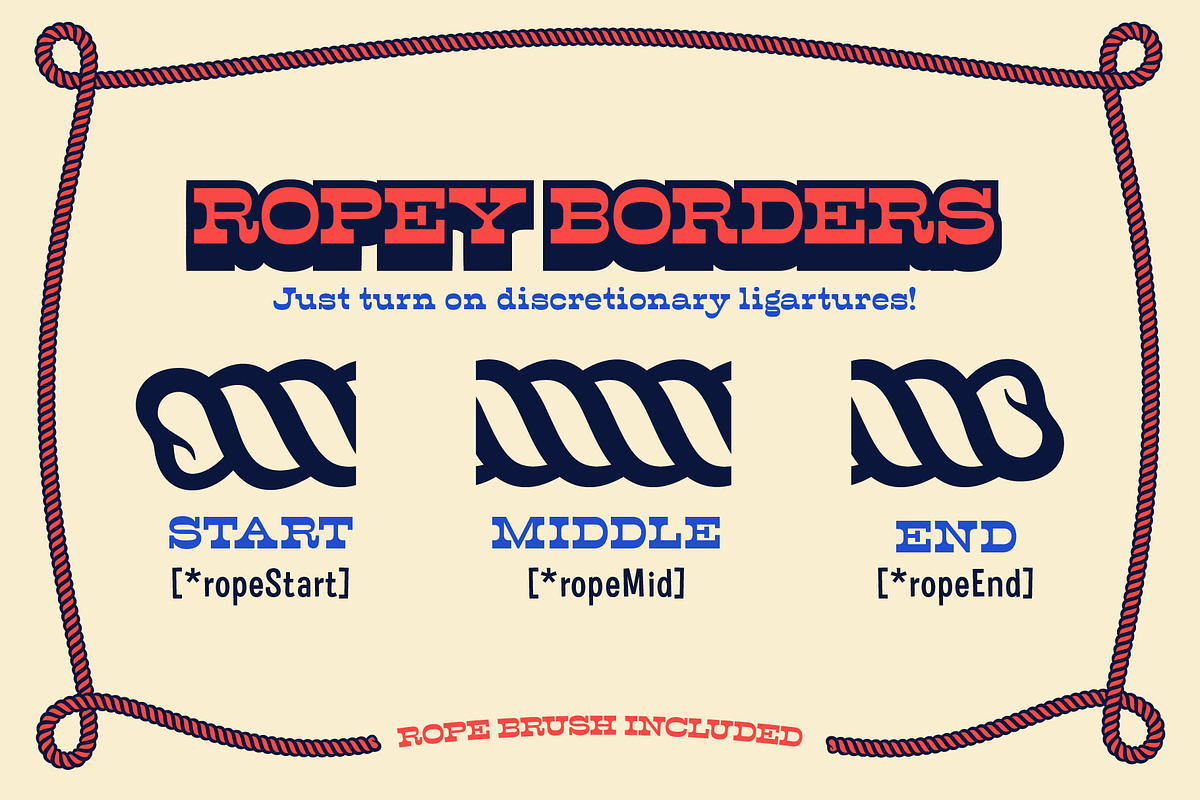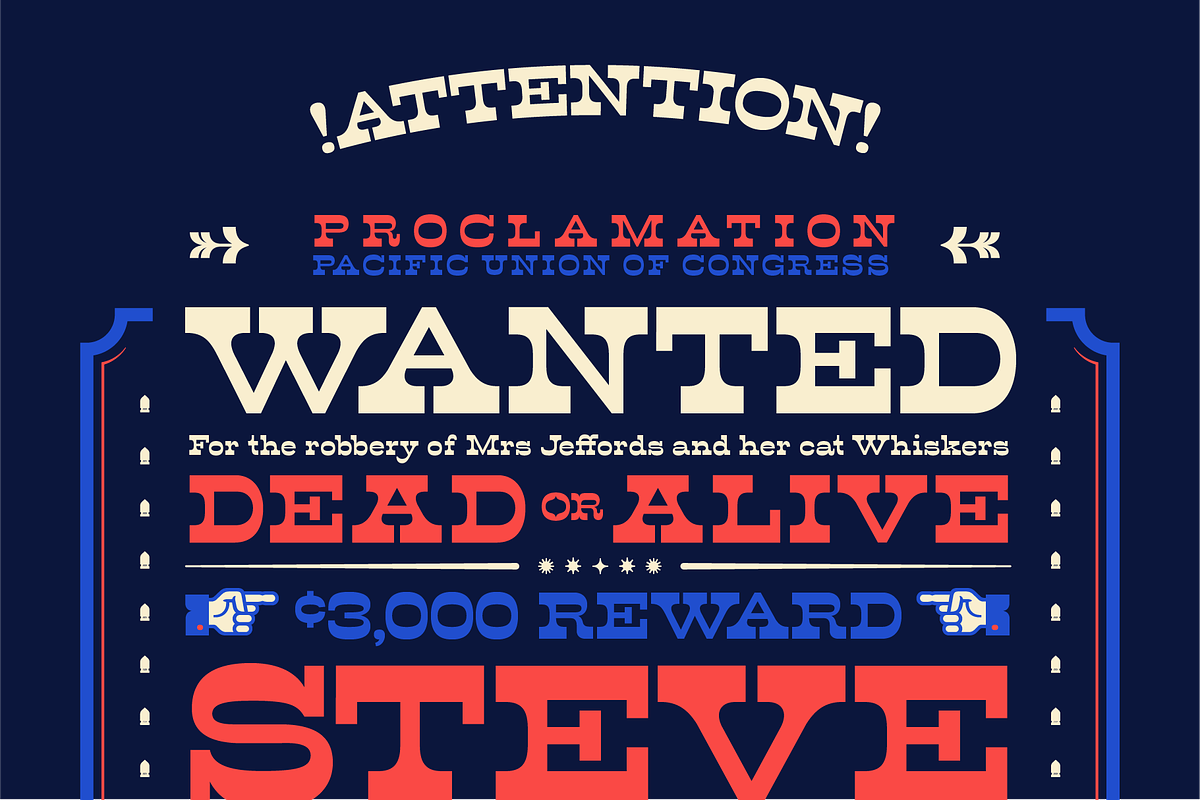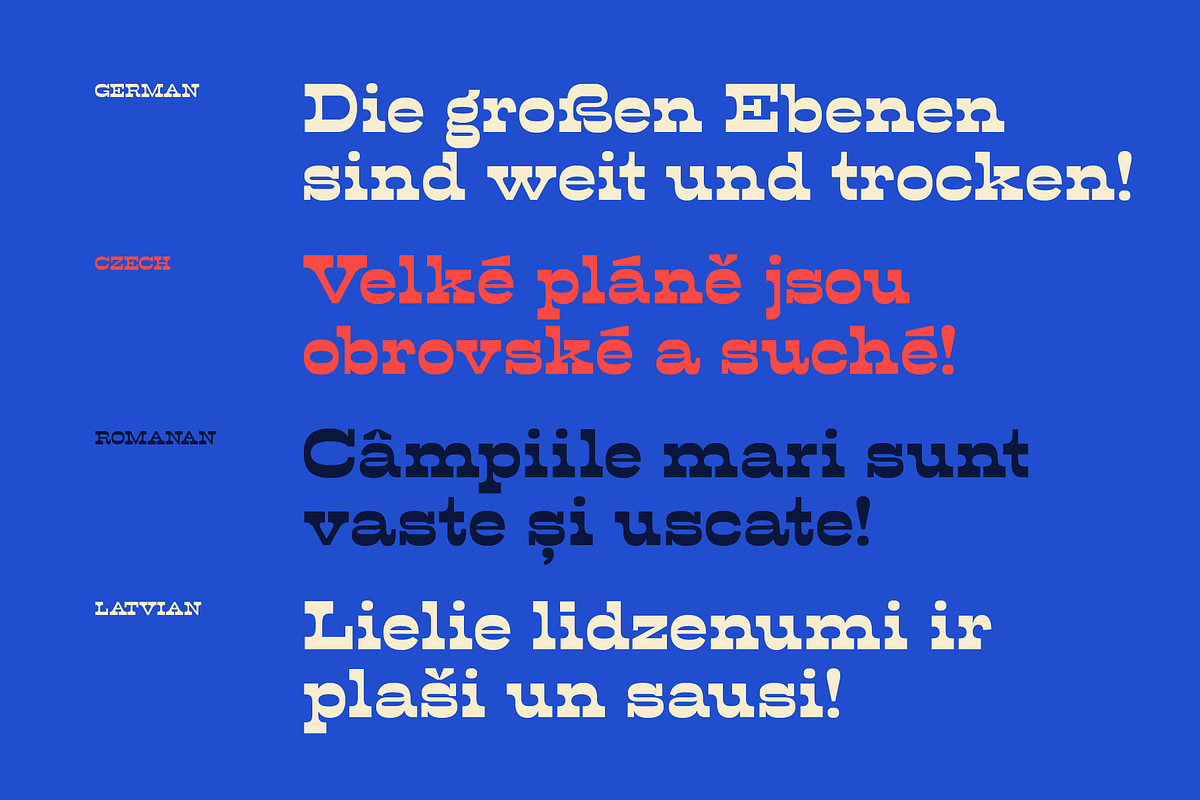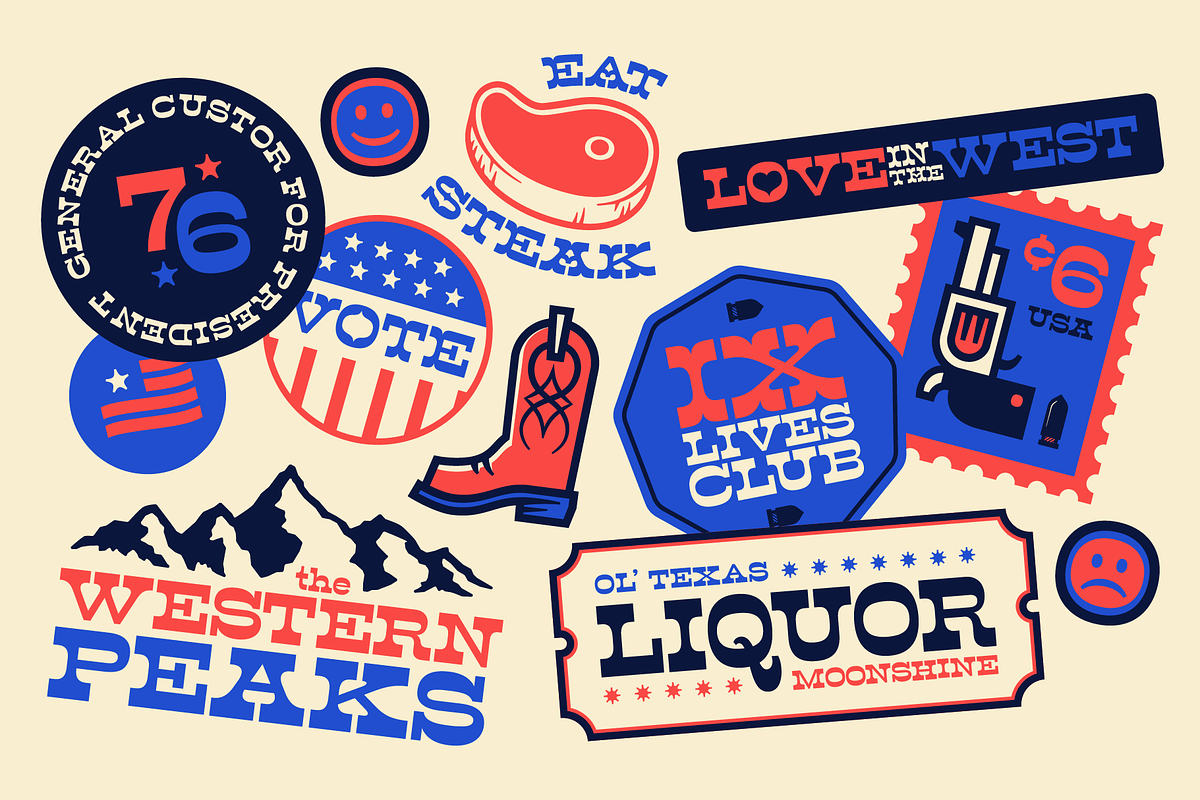
Acklebury
Acklebury is a chunky, reverse contrast, slab-serif typeface available in two styles. It has heaps of personality, plenty of open type features, and a whole host of special characters and dingbats.
Although it's drawn from historical sources, Acklebury is not a straight revival, rather more of an homage to the many, varied, extended lining figures of the late 1800's. Acklebury celebrates the once labelled 'hideous' combination of wide rounded forms and hard slab serifs. Only using modern type technology to fix the spacing and kerning issues that would of been impossible with metal or wooden type.
Acklebury is not a French Clarendon, neither is it really an Italienne... but it is phat, wide and hella funky.
- 1 weights, 2 styles
- Regular and Tuscan Serifs
Open Type Features
- Custom and Arbitrary Fractions
- Lining Figures
- Oldstyle Figures
- Tabular Figures
- Slashed Zero
- Ordinals
- Contextual Alternates
- Discretionary Ligatures
- Case Sensitive Forms